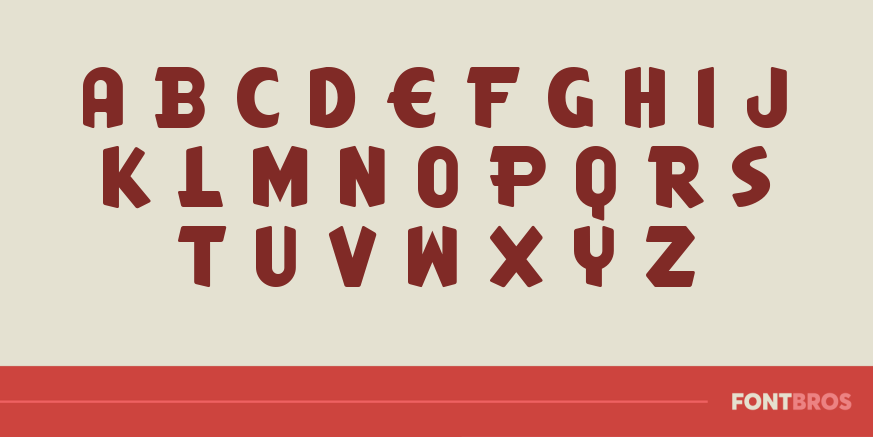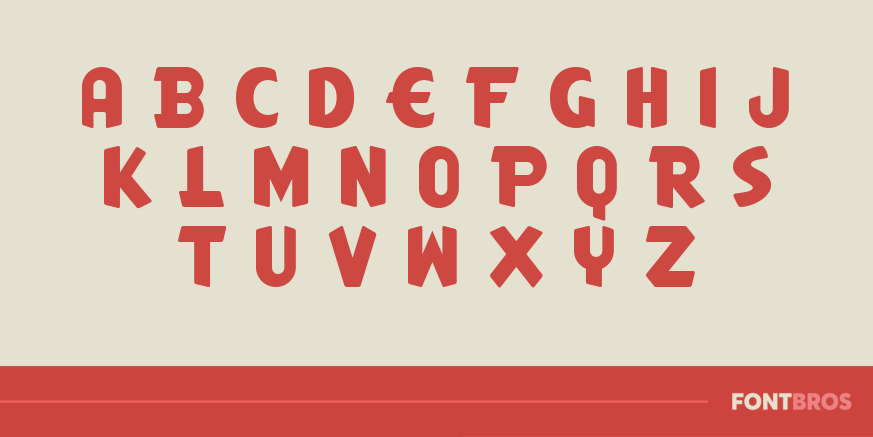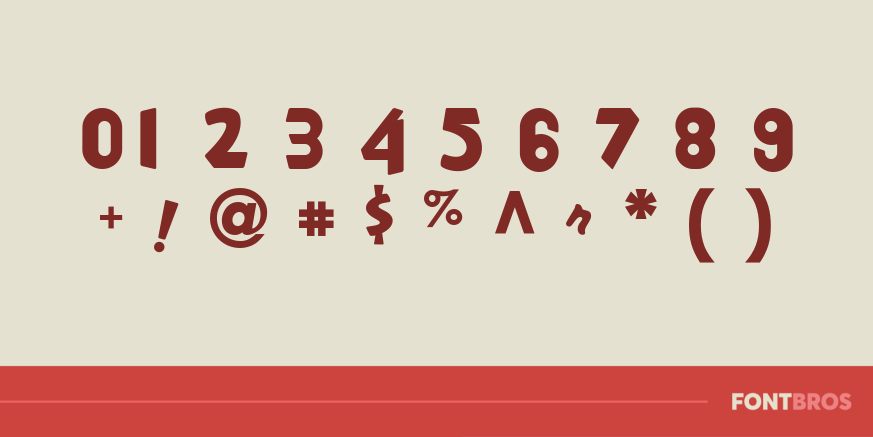
American Cheese
Font Family by Font Diner
If it's in sight, it must be right! Grab this bold Art Deco sans serif the next time you're hankering for a tasty steakburger and a milkshake!